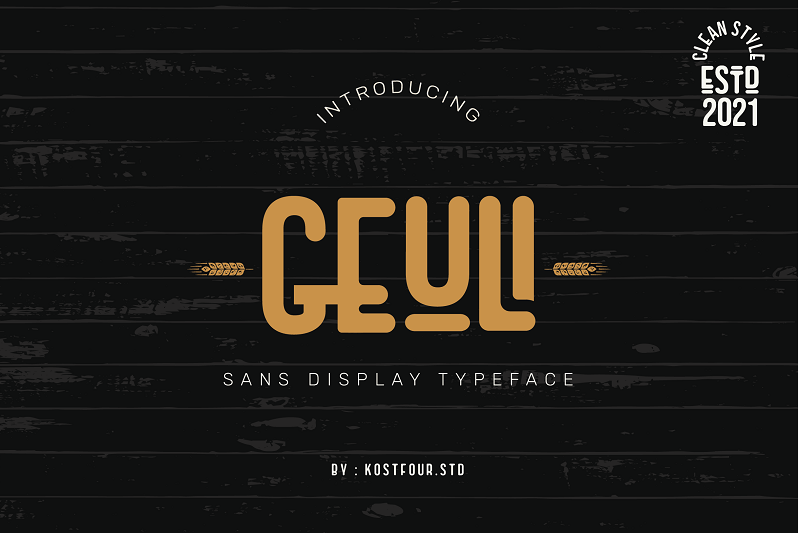
Geuli
Geuli is a cool, modern and minimalist display font. This font is ideal for writing web designs, business cards, or pretty much anything else that requires a unique touch.
You can create posters, web graphics, game graphics, t-shirts, videos, signs, logos and more